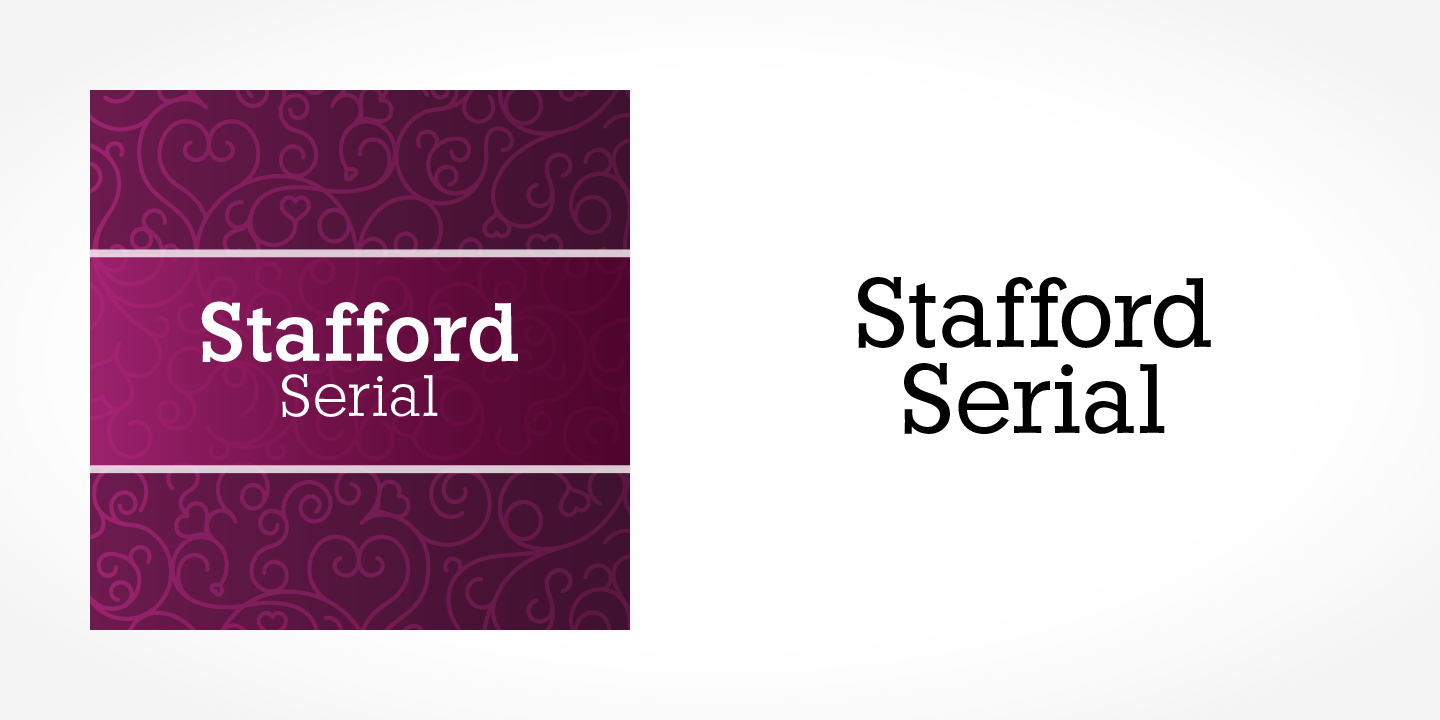
The Stafford Serial Font is a robust and highly functional typeface, often characterized by its clear, strong lines and a sense of industrial precision. Its no-nonsense, straightforward design makes it an excellent choice for technical documentation, engineering diagrams, packaging for industrial products, corporate reports, data visualization, and digital interfaces where clarity is paramount. Whether you're designing a complex schematic or a user-friendly dashboard, this font will imbue your project with a sense of reliability and authoritative professionalism.
What makes the Stafford Serial Font so exciting is its unwavering commitment to legibility and efficiency. It typically features open counters and well-defined letterforms, ensuring that text remains clear even in challenging environments or at small sizes. This font is perfect for designers who prioritize functionality and a clean, unambiguous visual communication. It stands out by offering a workhorse solution that is both incredibly versatile and maintains a strong, consistent identity. The inherent structure and clarity of the Stafford Serial Font ensure that your message is conveyed with utmost precision and readability, making it a dependable choice for projects where accuracy is key.
The Stafford Serial Font typically offers a comprehensive family to support diverse design needs. While specific variations may depend on the font package, you can generally expect to find a range of weights such as Light, Regular, Medium, Bold, and Black, providing extensive options for hierarchy and emphasis. Many versions of the Stafford Serial Font Free Download also include corresponding Italic styles for each weight, adding dynamic flexibility for emphasis and stylistic variation. Additionally, some premium packages might offer Condensed or Extended widths, various figure styles (e.g., tabular, old-style), and potentially even alternate characters for specific glyphs, allowing for more nuanced and custom typographic solutions. This extensive family ensures that the Stafford Serial Font can be adapted to almost any design requirement, maintaining a consistent, precise, and highly functional aesthetic throughout your project.